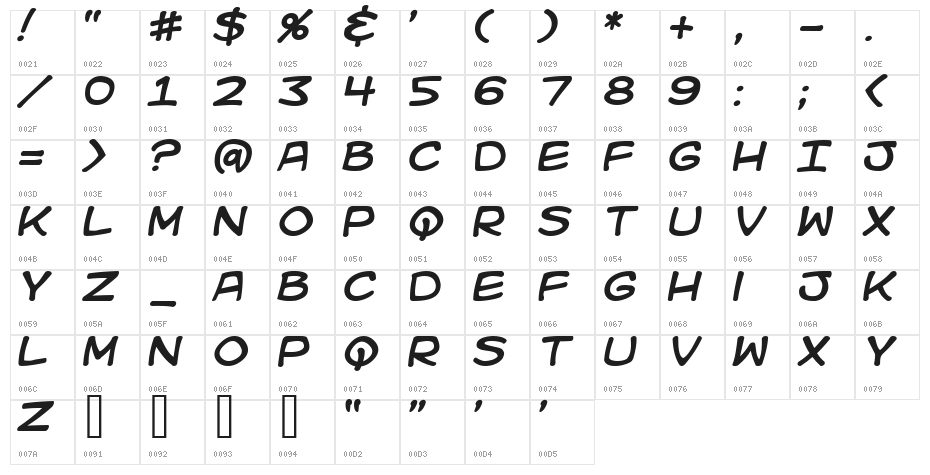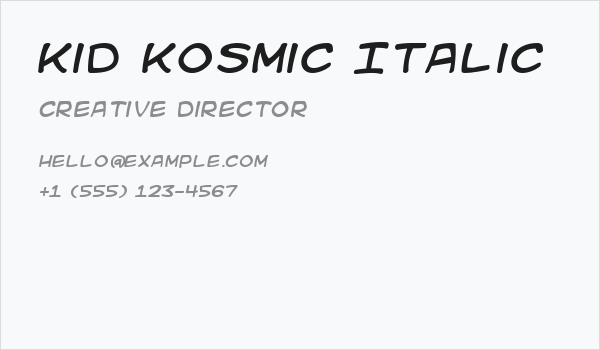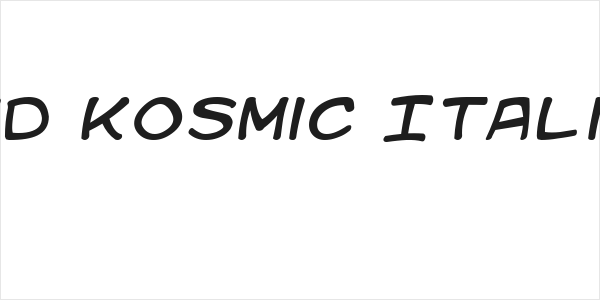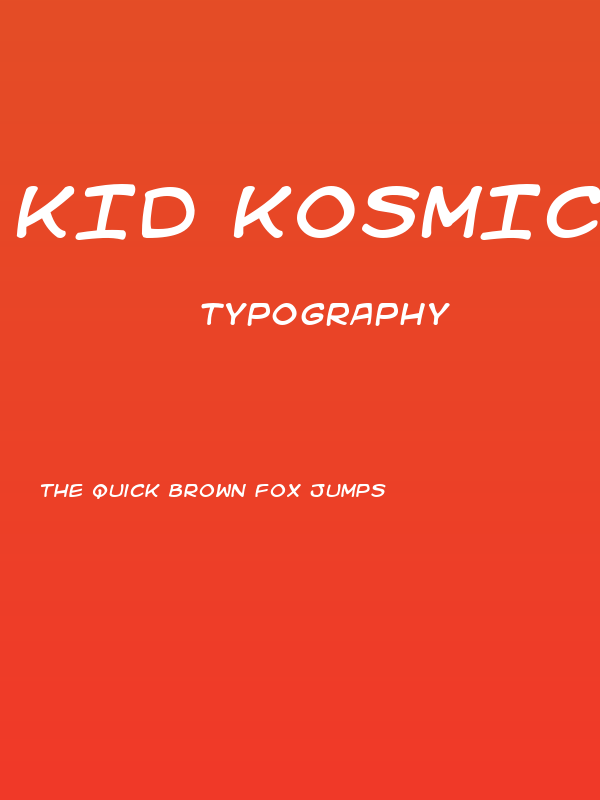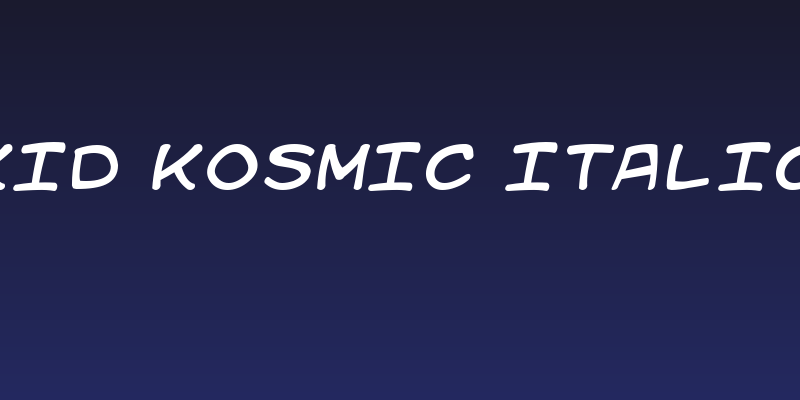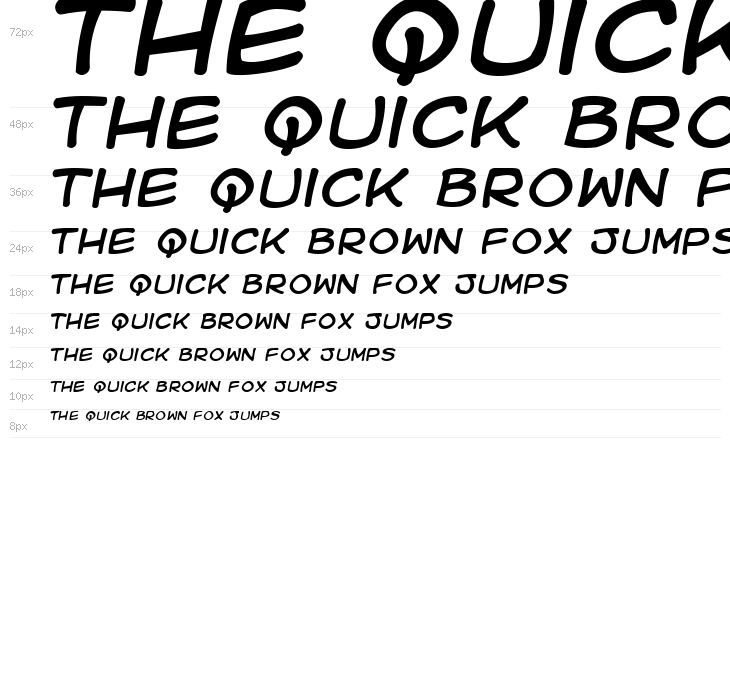
Kid Kosmic Italic Font
Kid Kosmic Italic Description
This playful and dynamic font features a handwritten style with a slight slant, giving it an energetic and informal appearance. The characters are bold and rounded, with a consistent stroke width that maintains readability. The uppercase and lowercase letters are well-balanced, and the numerals are clear and distinct. Special characters are creatively designed, adding to the font's whimsical charm. This font is ideal for projects that require a fun and approachable aesthetic, such as children's books, playful branding, or casual invitations.
| Proposed Projects | Children's books, playful branding, casual invitations, and informal posters. |